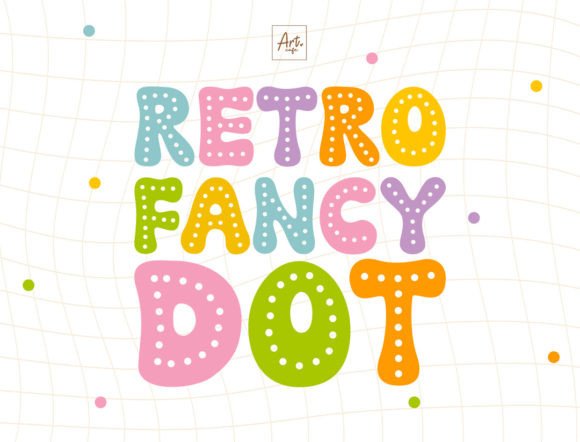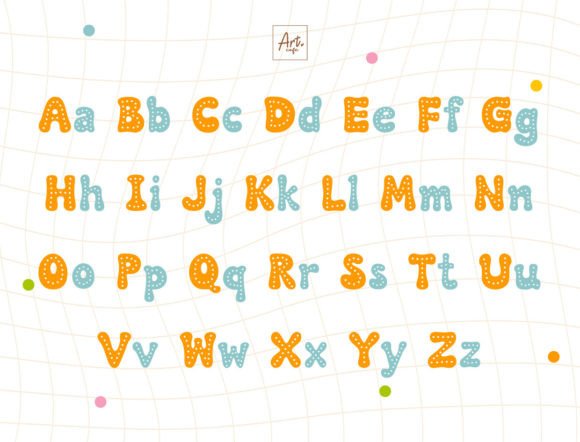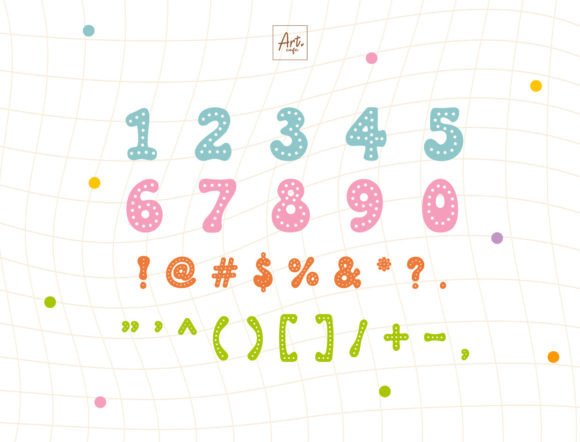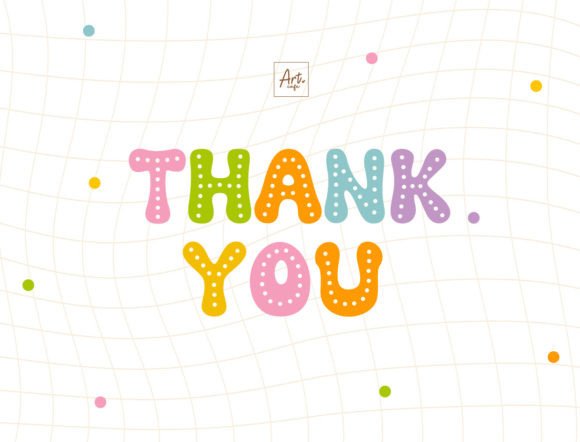
Retro Fancy Dot Font
About the Retro Fancy Dot Font
Presenting Retro Fancy Dot Font, a unique and stylish typeface that will make your work stand out. Introducing Retro Fancy Dot, a whimsical, and trendy font design, adorned with fun dotted lines. Its playful charm makes it the perfect choice for standout headlines in any project. Whether it’s a ‘Back to School’ announcement, academic bulletins for teachers, playful content for kids, or invigorating invitations for parties, the Retro Fancy Dot font adds an enjoyable punch to your presentation. Embrace the nostalgia and let your creative juices flow with this exciting font design.
Retro Fancy Dot’s playful energy makes it ideal for headlines, short text blocks on posters or invitations, and branding projects requiring a touch of vintage charm. It’s also well-suited for packaging design, particularly for products aimed at a younger audience or those with a nostalgic appeal. However, its decorative nature makes it less suitable for body text or UI elements where readability is paramount. Avoid using it for long paragraphs or dense information.
Pairing Retro Fancy Dot works best with clean, simple fonts that provide contrast. Consider a geometric sans-serif like Futura for a modern feel or a classic serif like Garamond for a more traditional balance. A script font with a similar playful energy could also work, depending on the project’s overall aesthetic.
The font’s personality is best described as whimsical and nostalgic, yet undeniably bold. This combination makes it suitable for brands targeting a youthful and playful audience, or projects emphasizing a retro or vintage aesthetic.
Retro Fancy Dot Font Usage Examples
Retro Fancy Dot Font Example